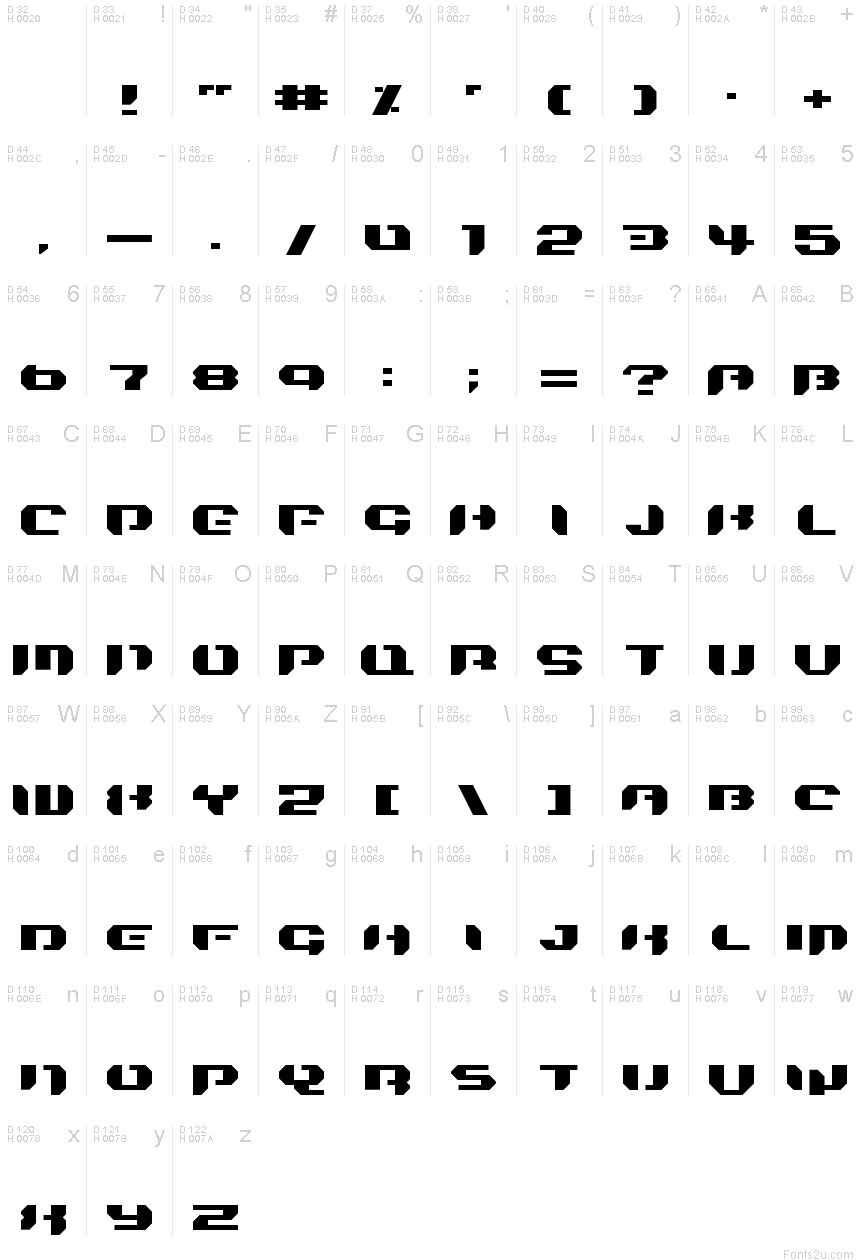
Bionic Kid Simple
Bionic Kid Simple font by Jakob Fischer of PizzaDude is a free techno display typeface that looks like it was stamped straight out of a chunky arcade console. Its blocky, faceted shapes and tight, modular rhythm feel both futuristic and playful, like robots built from toy bricks. Letters stack together in a solid, almost mechanical line, giving your words a bold, digital buzz without becoming hard to read.
Using Bionic Kid Simple from the Bionic Kid family, you can instantly push game titles, kids’ sci-fi book covers, toy packaging, STEM camp posters, YouTube thumbnails, and esports logos into a fun, techy universe. This free font shines at large sizes where its angular corners and compact spacing really lock together. Pair it with a clean geometric sans for body text to balance its heavy, robotic voice.